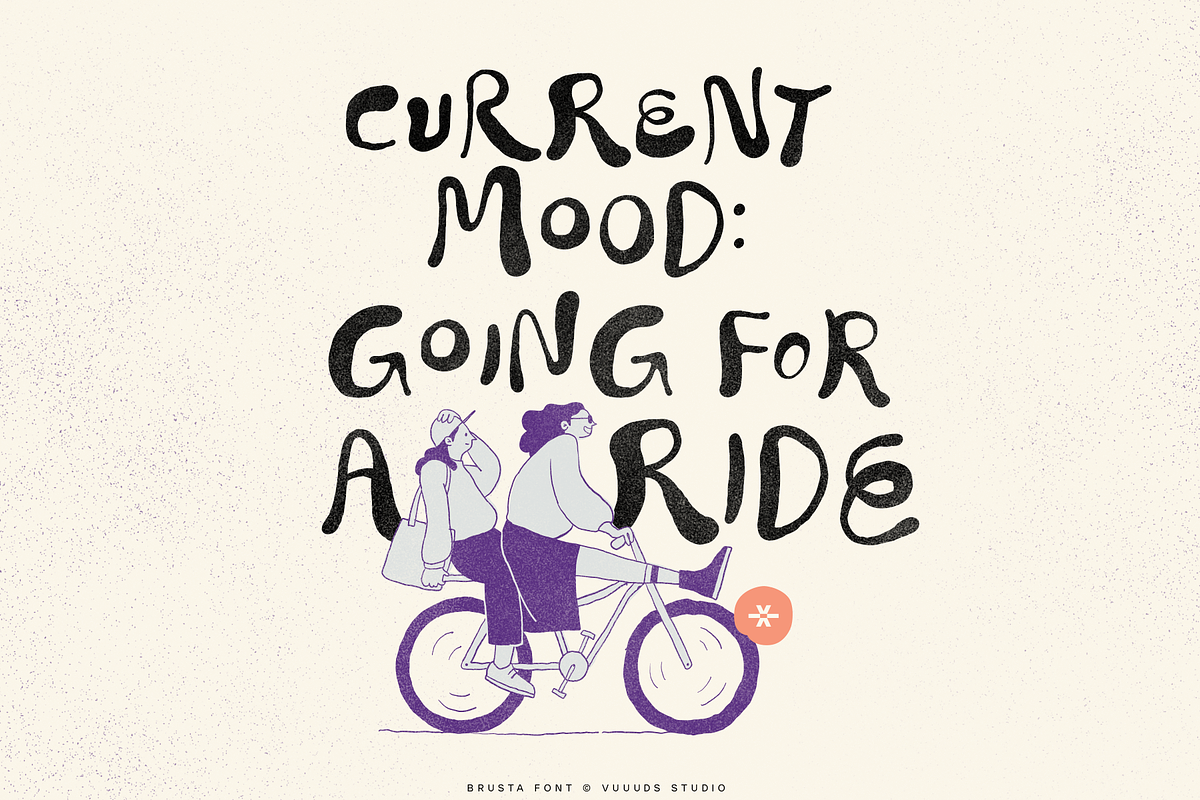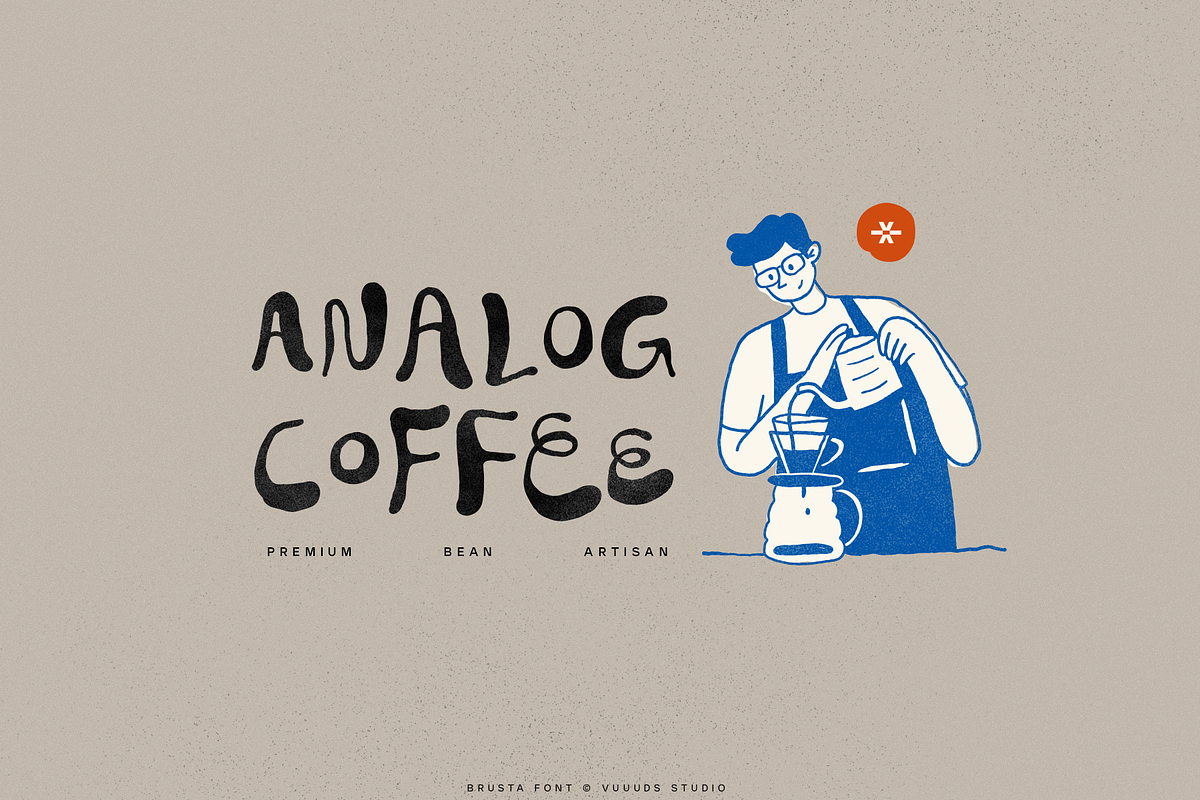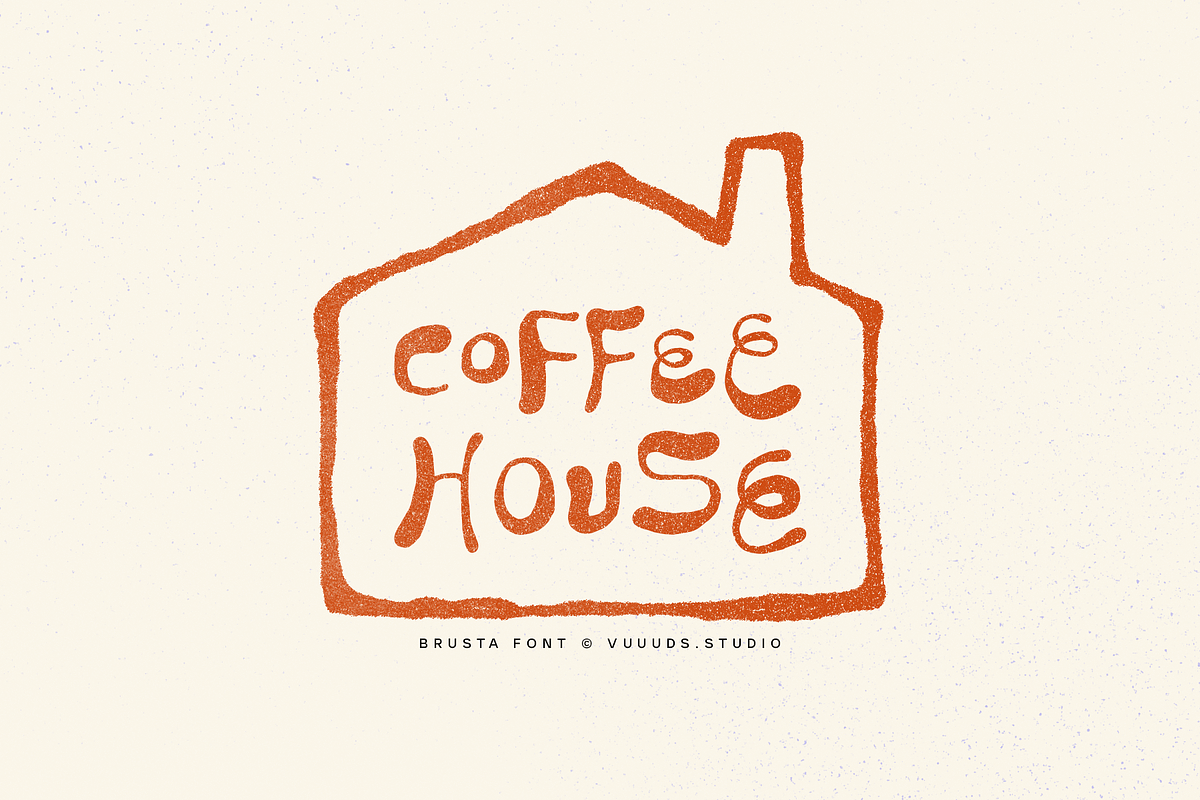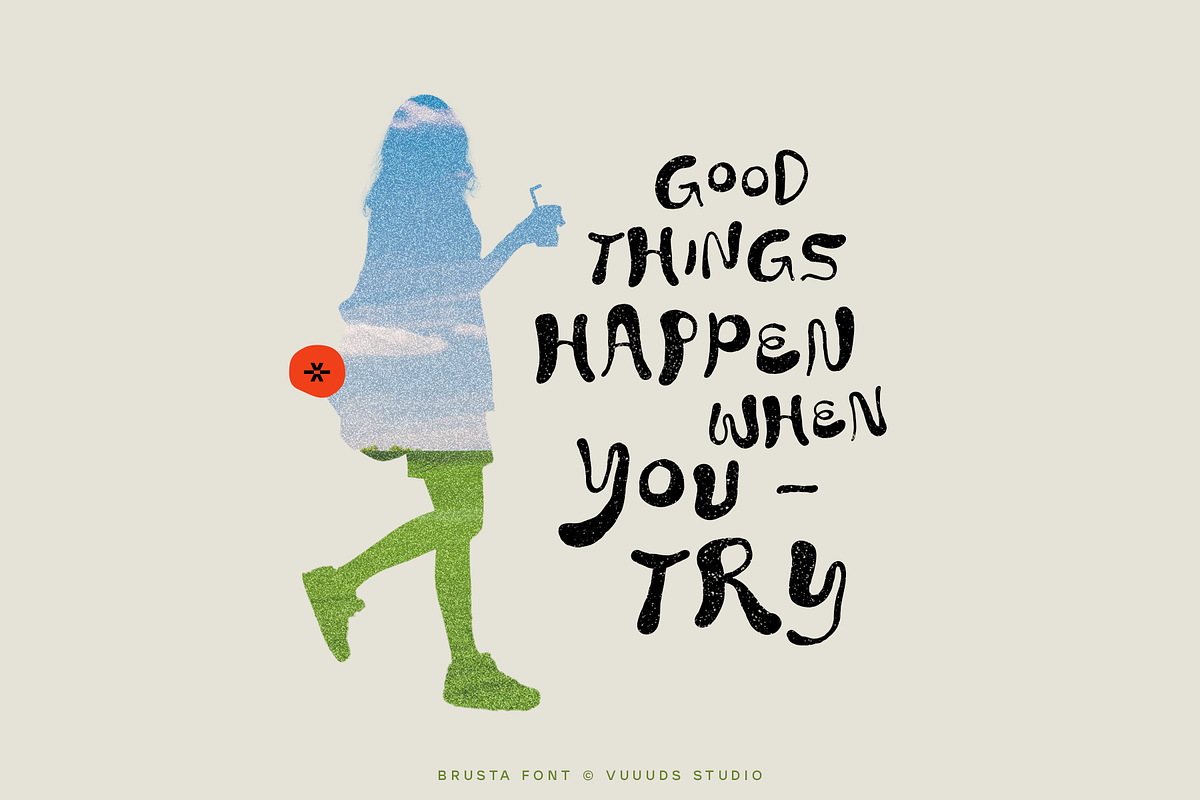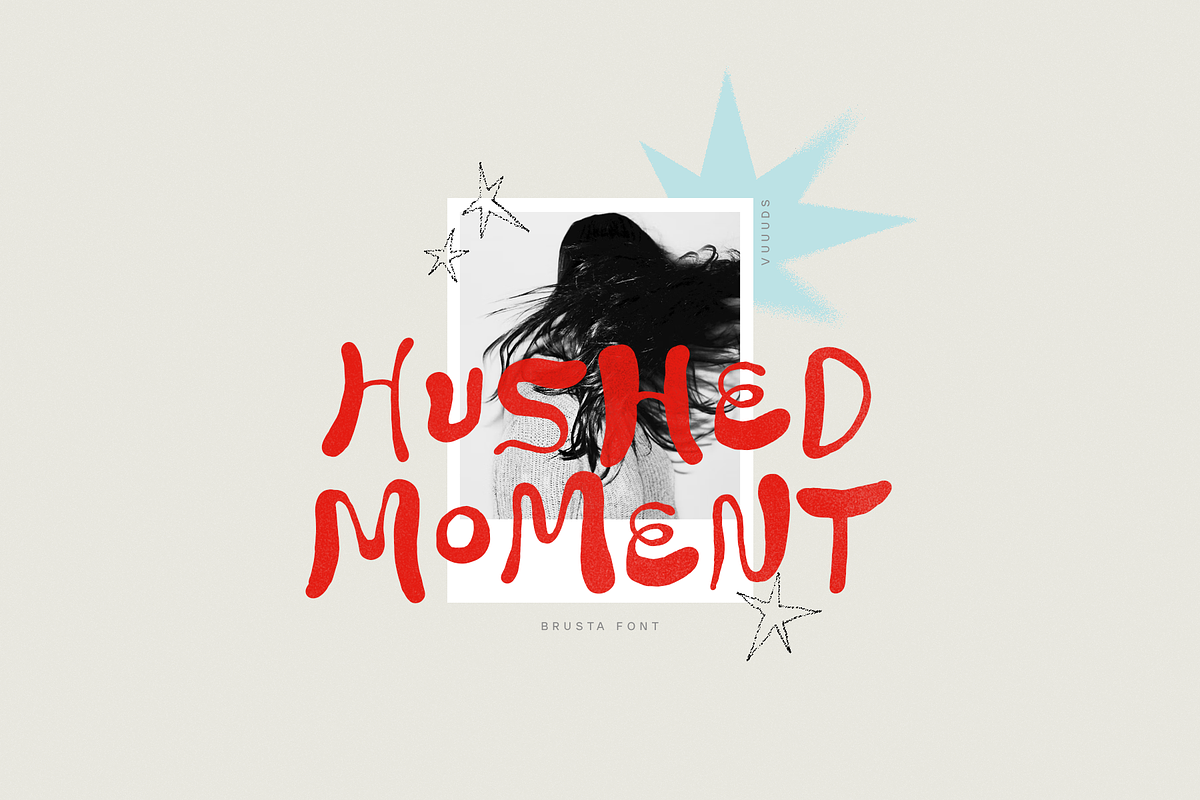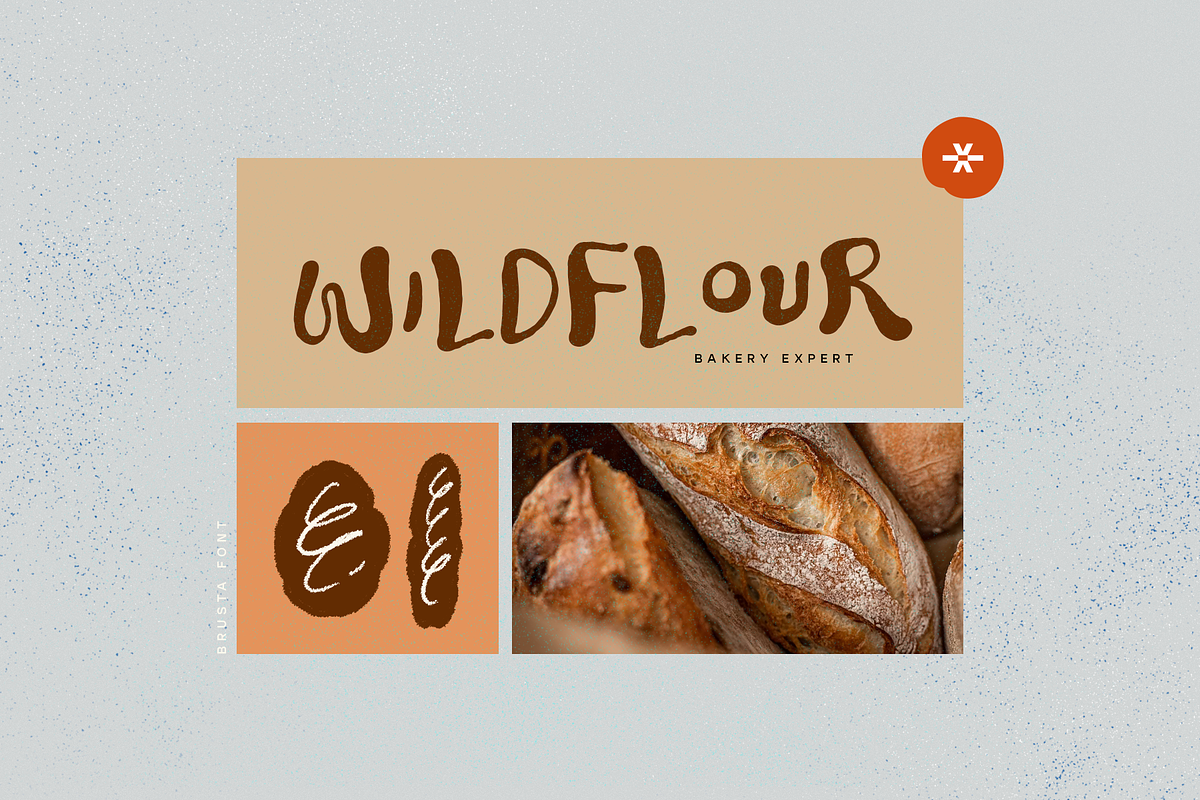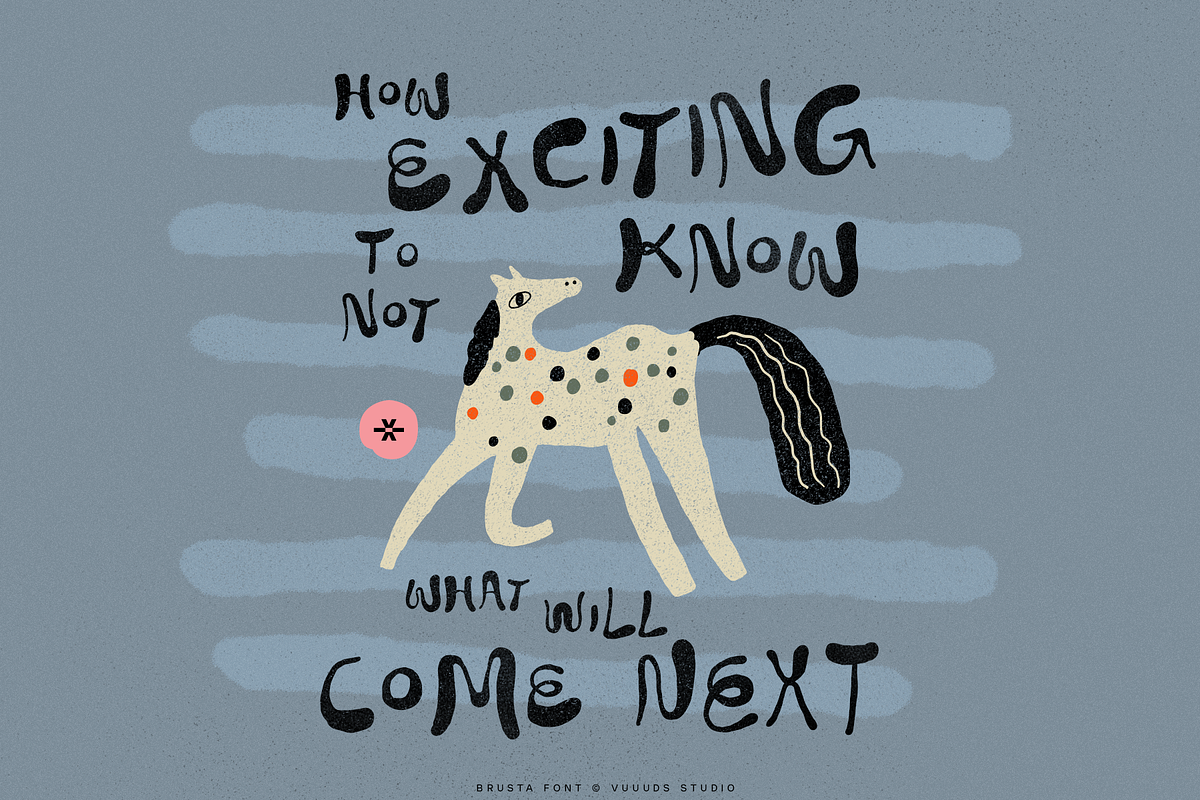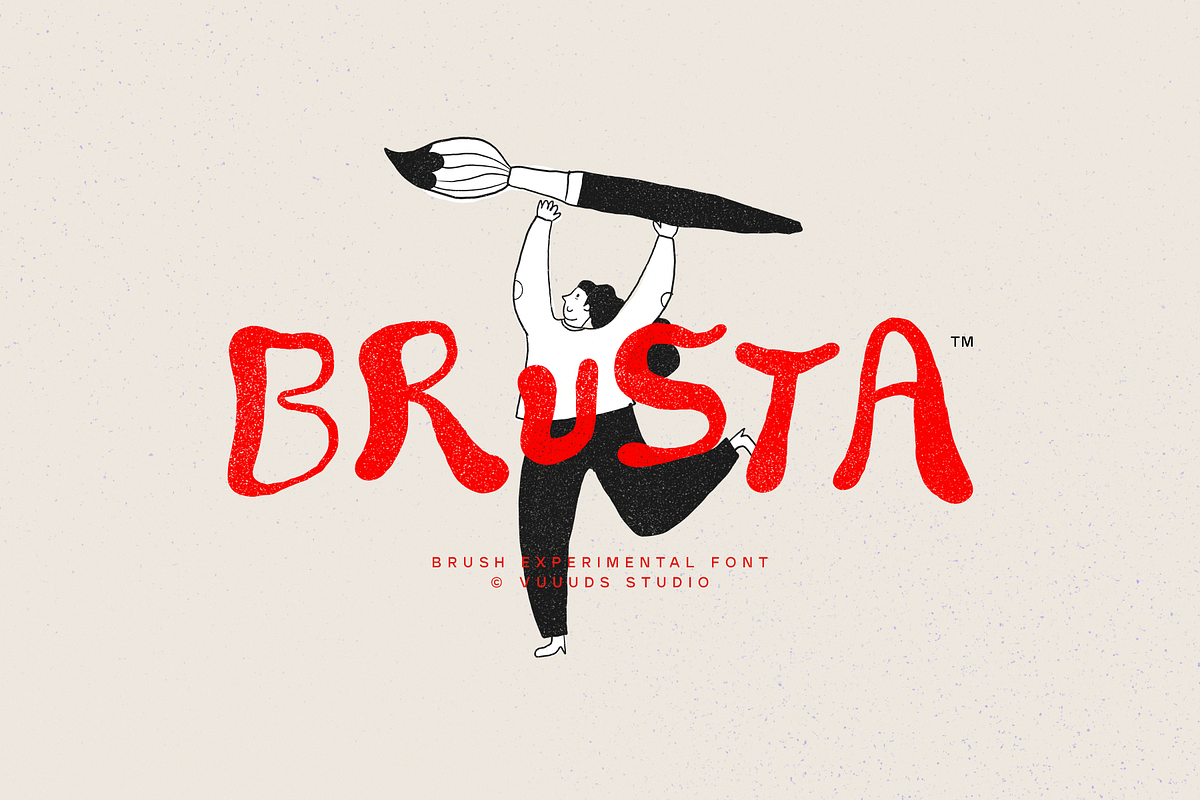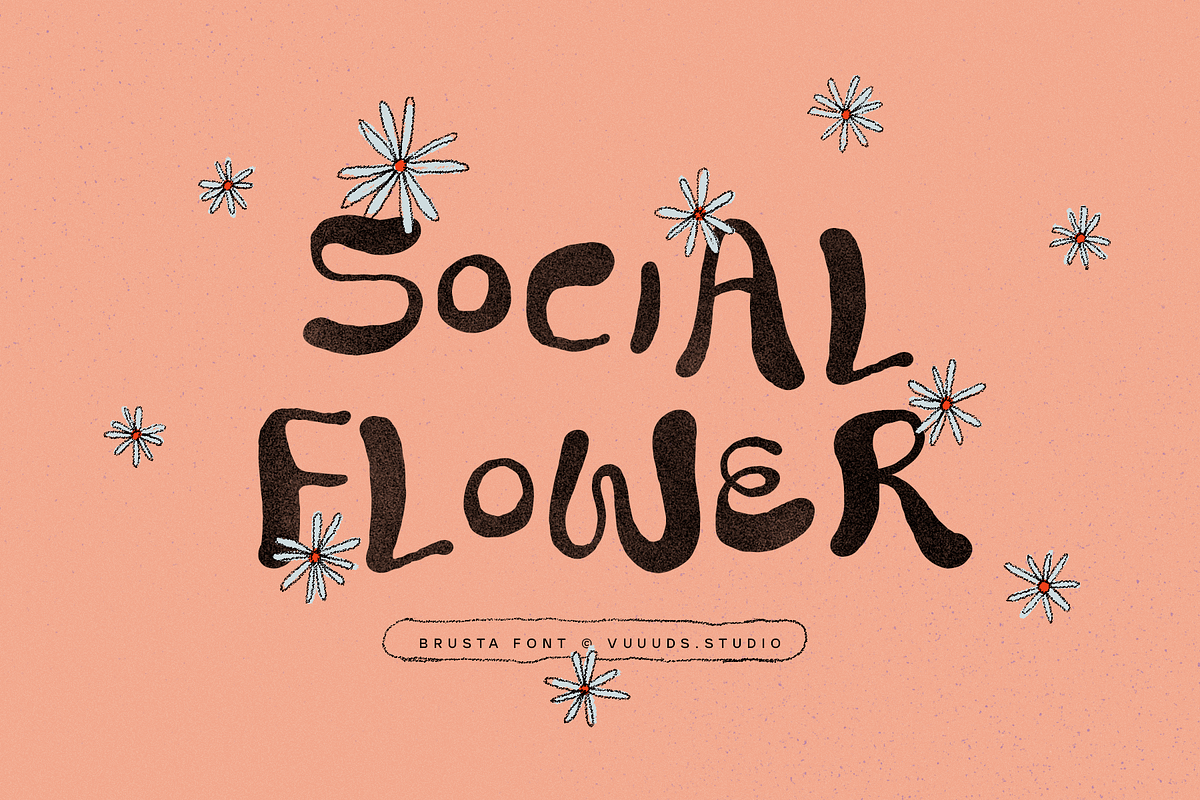
Brusta
Bring your creative ideas to life with Brusta font, a fluid-rounded typeface featuring a unique play on stroke contrast. Perfect for making a memorable statement in logos, branding, posters, and flyers.
Multi languages support:
ÀÁÂÃÄÅÆÇÈÉÊËÌÍÎÏÐÑÒÓÔÕÖØÙÚÛÜÝŸàáâãäåæçèéêëìíîïðñòóôõöøùúûüýÿ ߀£¥©®™•